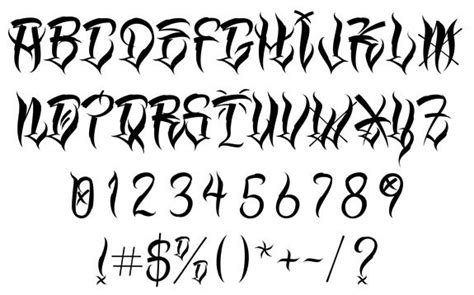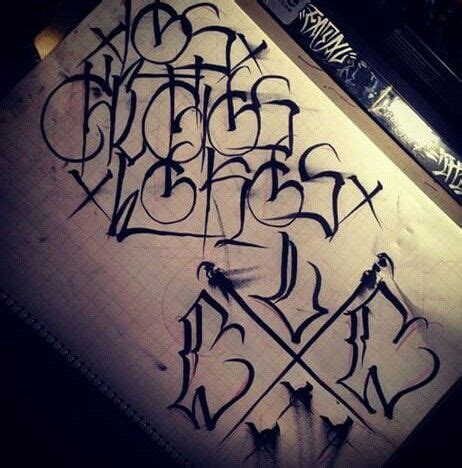
Cholo Graffiti Handwriting Font : How To Draw You Tube Letters (Cholo Font) - YouTube / Classics (baskerville, futura, garamond) alongside hot new fonts (futura now, tt ramillas,juana).. 754 x 1142 jpeg 115 кб. Free graffiti fonts are an irreproachable source to constrain your imagination, reflect your creativity and make your artworks stand out. History of civil script and modern cyrillic type. Browse and download graffiti fonts and generate images from custom text with graffiti fonts. Recent fonts top fonts designers submit a font.
Our most daring and original sources for street graffiti or a mural. Browse and download graffiti fonts and generate images from custom text with graffiti fonts. Ready to personalize and share in facebook and twitter. 1000 x 1150 png 76 кб. Once used on urban walls to make political and social statements, their acceptance has grown into other mediums too because of their striking creativity and sort of provocative looks.
Download and install free handwritten fonts of the best quality from free fonts and use on your own personal and business related design purposes. Classics (baskerville, futura, garamond) alongside hot new fonts (futura now, tt ramillas,juana). Ameliya script font is a hand calligraphy font, it's interesting because it has a soft, clean, feminine, sensual, glamorous, simple and very easy to read typeface, because there. This is a functional font, that is totally legible whilst keeping the graffiti feel, in a brushstroke style. Our most daring and original sources for street graffiti or a mural. The victor handwriting font has a truly handwritten feel; Demo donationware free free for personal use public domain, gpl, ofl shareware. Over 25 graffiti fonts including wildstyle, bubble, gangsta and more!
The best selection of graffiti fonts for windows and macintosh. Browse and download graffiti fonts and generate images from custom text with graffiti fonts. See more ideas about lettering fonts, lettering alphabet, tattoo lettering. Free graffiti fonts are an irreproachable source to constrain your imagination, reflect your creativity and make your artworks stand out. Over 25 graffiti fonts including wildstyle, bubble, gangsta and more! The victor handwriting font has a truly handwritten feel; Download and install free handwritten fonts of the best quality from free fonts and use on your own personal and business related design purposes. Ameliya script font is a hand calligraphy font, it's interesting because it has a soft, clean, feminine, sensual, glamorous, simple and very easy to read typeface, because there. Graffiti has been successfully revealed in printed sources. Make your text words into custom graffiti style graphics. Archive of freely downloadable fonts. Ready to personalize and share in facebook and twitter. Font name newest most downloads.
Demo donationware free free for personal use public domain, gpl, ofl shareware. Pin by cara on inspiration & reference dump | graffiti. Graffiti is an artistic expression that is usually done on public buildings, walls, or trains. Free graffiti fonts are an irreproachable source to constrain your imagination, reflect your creativity and make your artworks stand out. Cholo writing is the style of graffiti used by mexican gangs in los angeles. 754 x 1142 jpeg 115 кб. Old slavic alphabets and new fonts. Font name newest most downloads.
Cholo writing is the style of graffiti used by mexican gangs in los angeles. The uneven letters (with bold and thinner letters) it looks as though someone dipped a quill in ink and scratched the font onto a paper. Built for a wide audience, it is an approachable way of adding an urban edge to this font is one of the best graffiti fonts we've seen, with a rugged authenticity that will bring an urban feel to your projects. Demo donationware free free for personal use public domain, gpl, ofl shareware. Browse and download graffiti fonts and generate images from custom text with graffiti fonts. Over 25 graffiti fonts including wildstyle, bubble, gangsta and more! This is a functional font, that is totally legible whilst keeping the graffiti feel, in a brushstroke style. Ameliya script font is a hand calligraphy font, it's interesting because it has a soft, clean, feminine, sensual, glamorous, simple and very easy to read typeface, because there. Pin by cara on inspiration & reference dump | graffiti. Old slavic alphabets and new fonts. The best selection of graffiti fonts for windows and macintosh. 754 x 1142 jpeg 115 кб. Ready to personalize and share in facebook and twitter.
Browse by alphabetical listing, by style, by author or by popularity. Over 25 graffiti fonts including wildstyle, bubble, gangsta and more! 754 x 1142 jpeg 115 кб. This is a functional font, that is totally legible whilst keeping the graffiti feel, in a brushstroke style. Make your text words into custom graffiti style graphics.
650 x 300 jpeg 24 кб. The uneven letters (with bold and thinner letters) it looks as though someone dipped a quill in ink and scratched the font onto a paper. This is a functional font, that is totally legible whilst keeping the graffiti feel, in a brushstroke style. Create custom graffiti text from many graffiti fonts available. The victor handwriting font has a truly handwritten feel; Graffiti is an artistic expression that is usually done on public buildings, walls, or trains. Browse by alphabetical listing, by style, by author or by popularity. Make your text words into custom graffiti style graphics.
This is a functional font, that is totally legible whilst keeping the graffiti feel, in a brushstroke style.
Cholo writing is the style of graffiti used by mexican gangs in los angeles. Browse by alphabetical listing, by style, by author or by popularity. Demo donationware free free for personal use public domain, gpl, ofl shareware. This is a functional font, that is totally legible whilst keeping the graffiti feel, in a brushstroke style. Archive of freely downloadable fonts. Download free handwritten fonts for commercial and personal use. 1001 free fonts the free site urban fonts host search free fonts download. Old slavic alphabets and new fonts. Classics (baskerville, futura, garamond) alongside hot new fonts (futura now, tt ramillas,juana). Browse a unique collection of the best handwritten fonts and thousands of free typefaces to download. Over recent decades, graffiti has become something more than just a wall handwriting. 650 x 300 jpeg 24 кб. Pin by cara on inspiration & reference dump | graffiti.